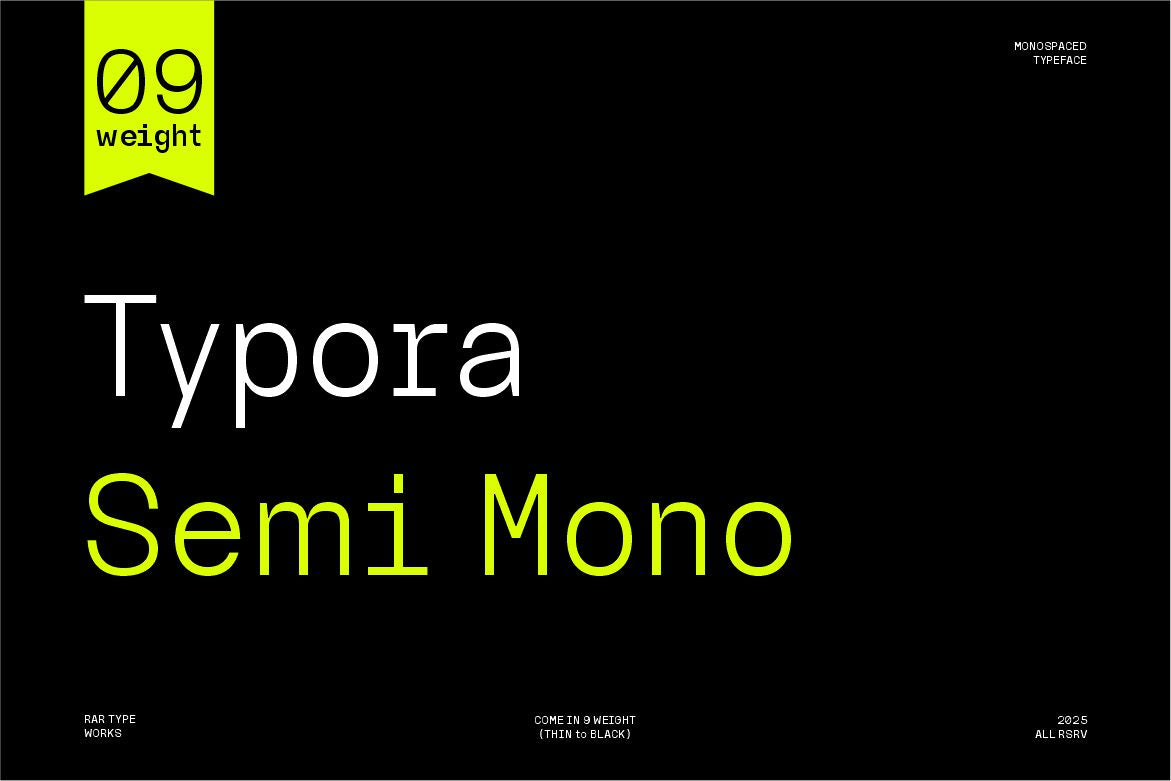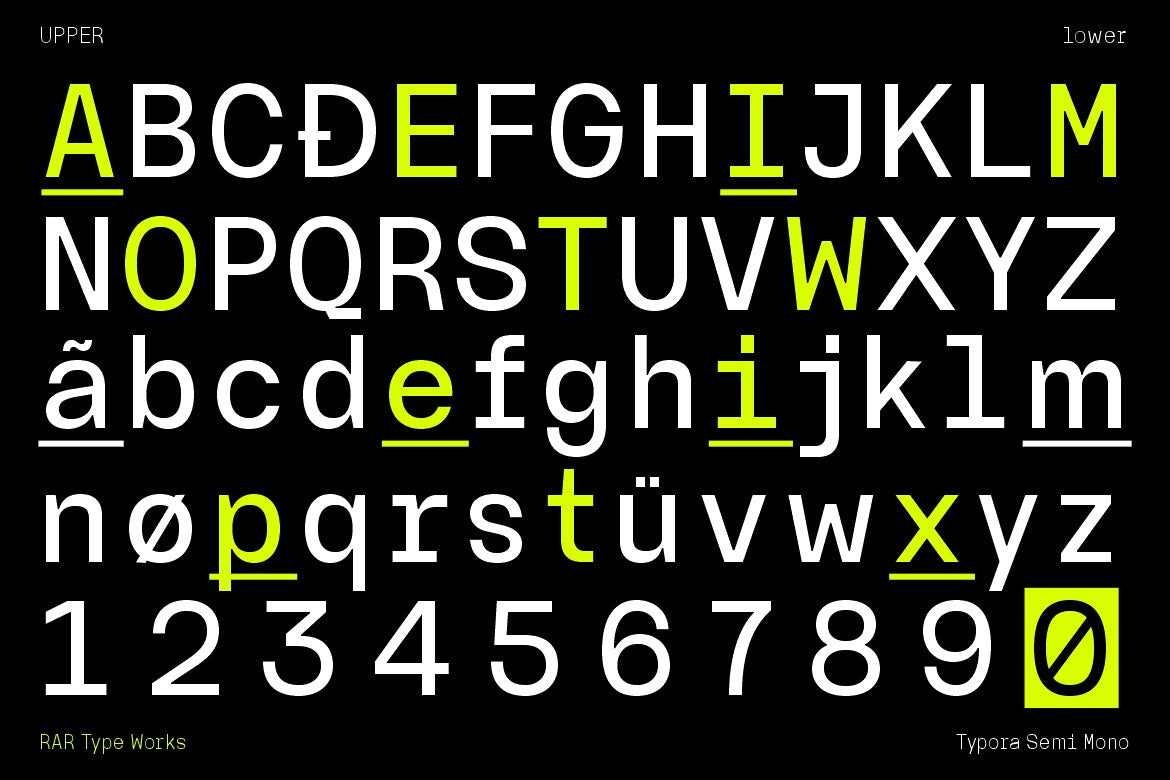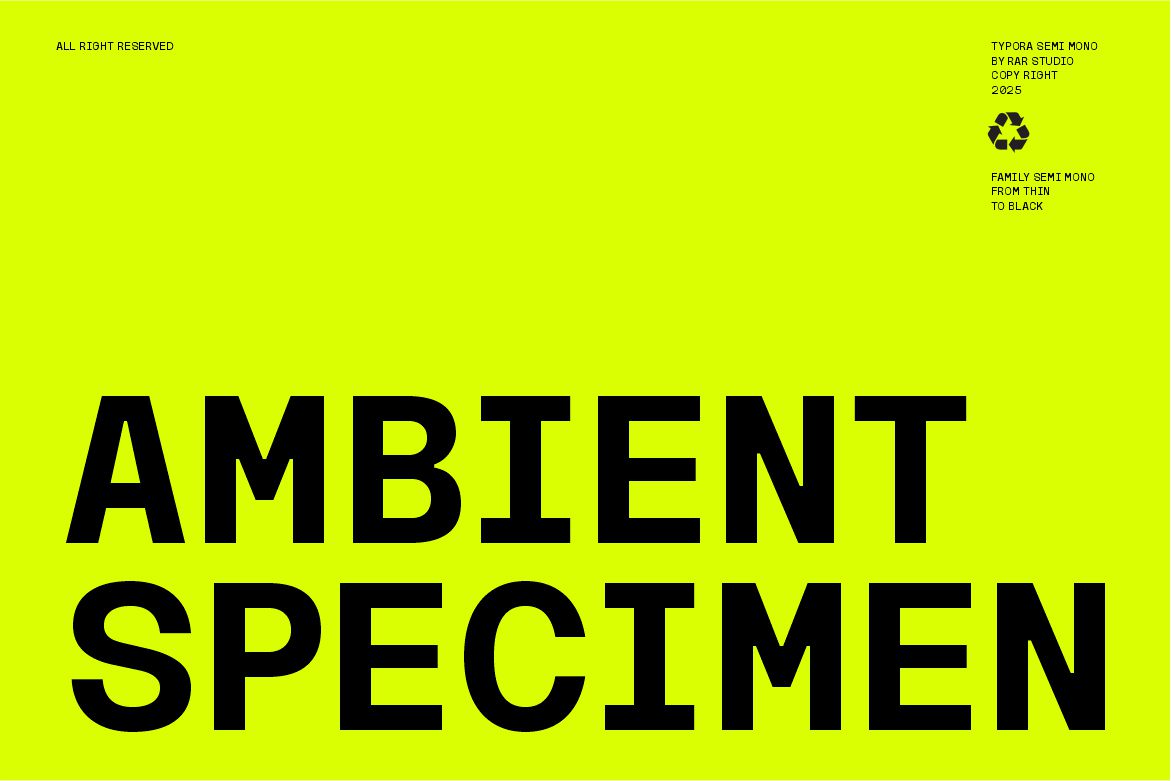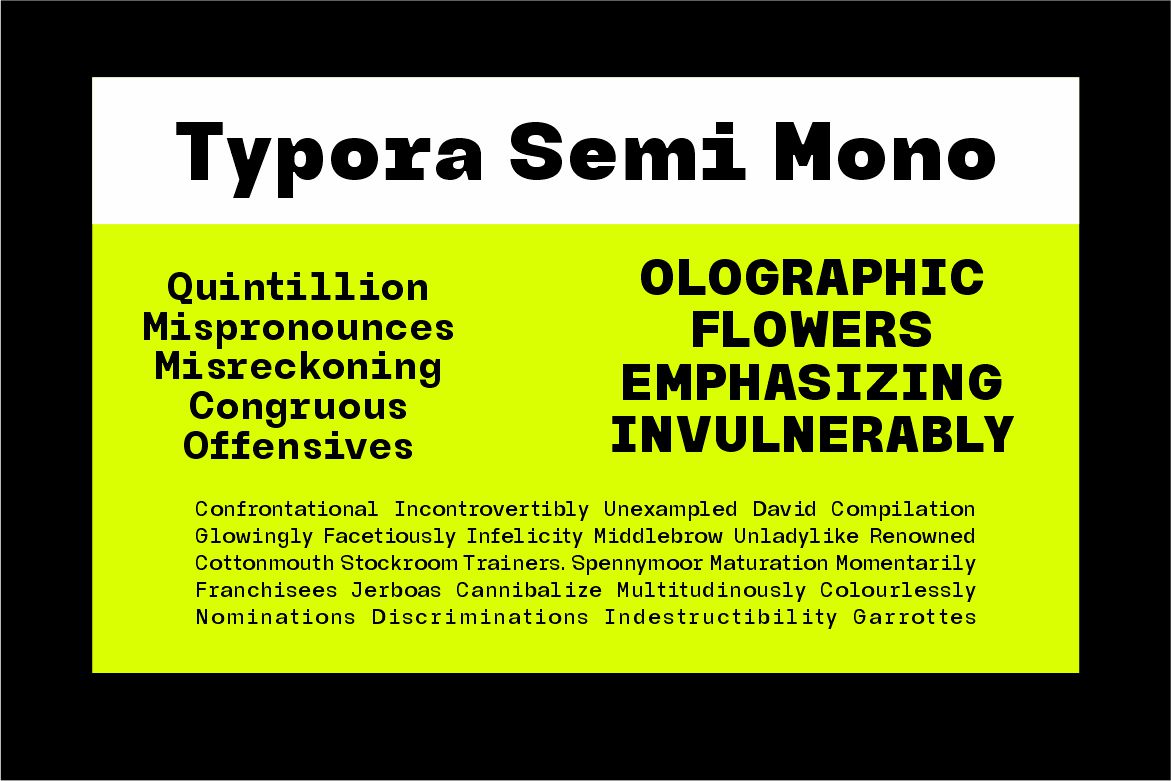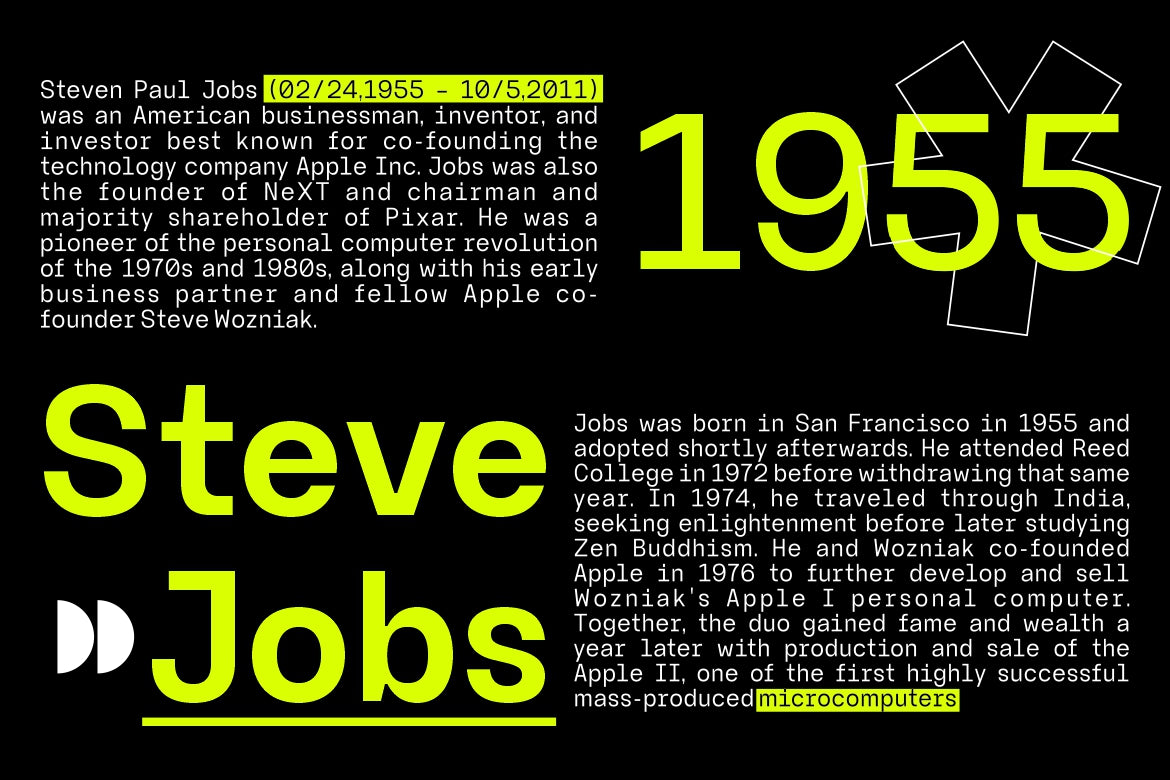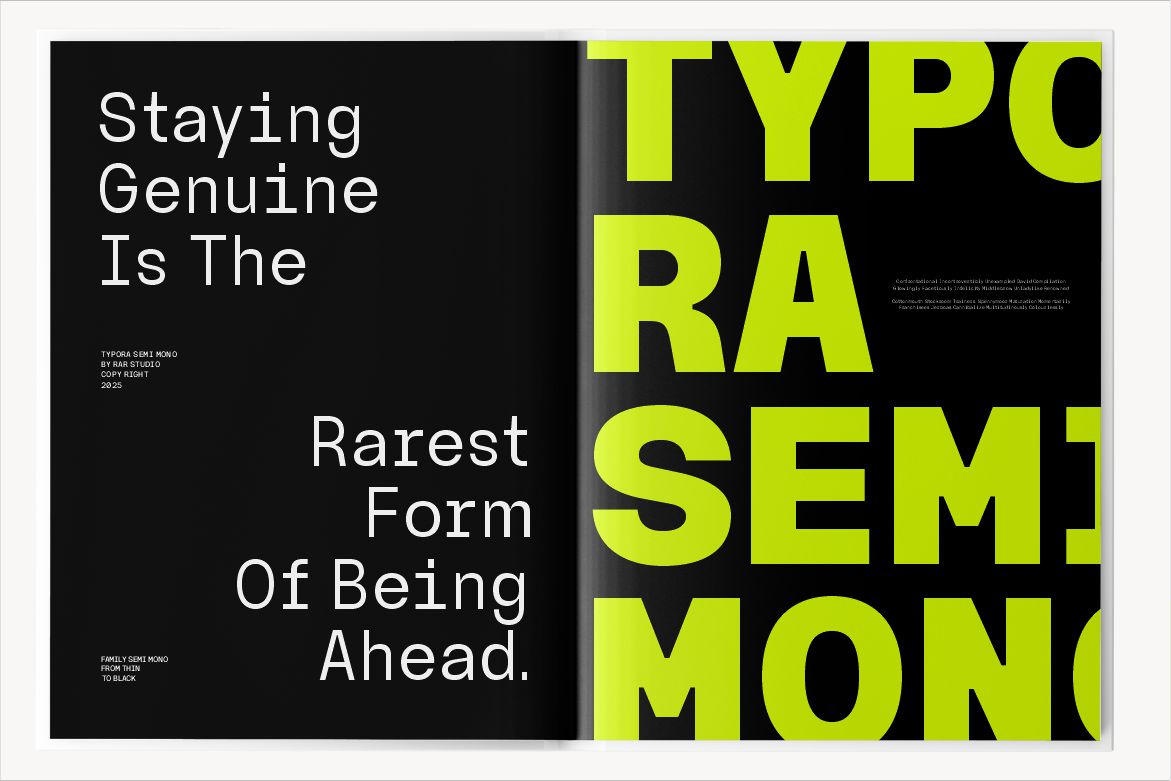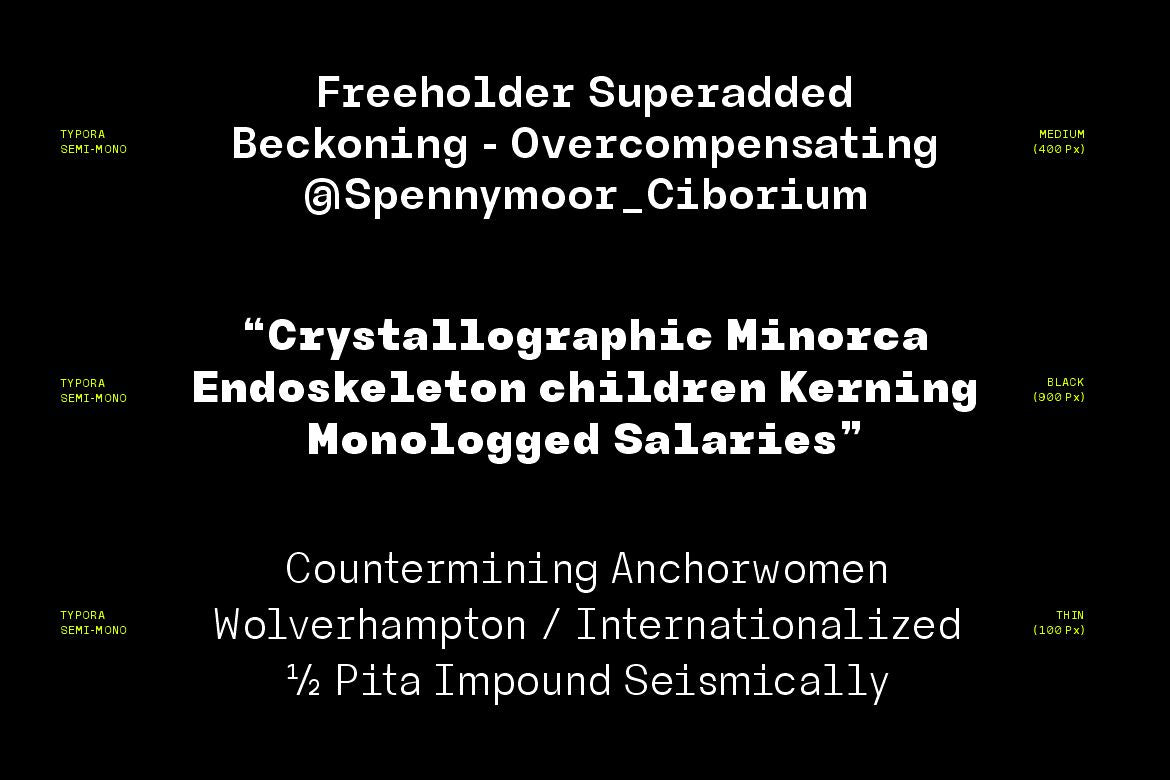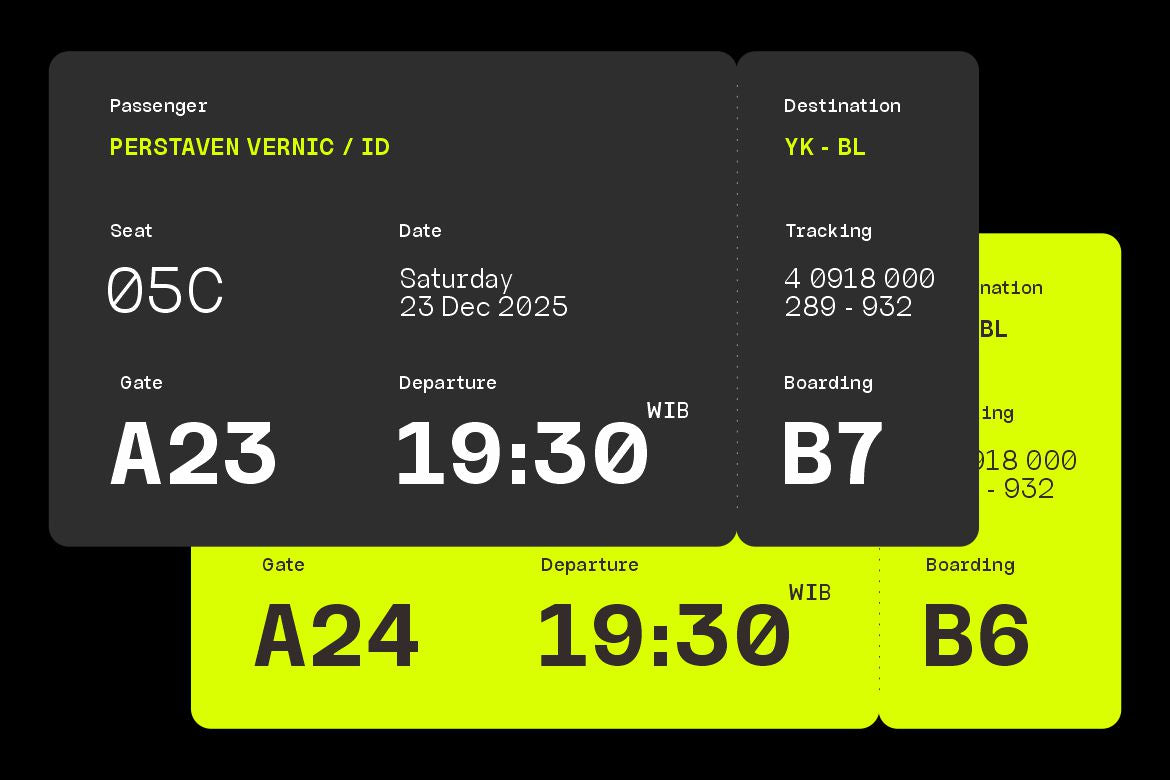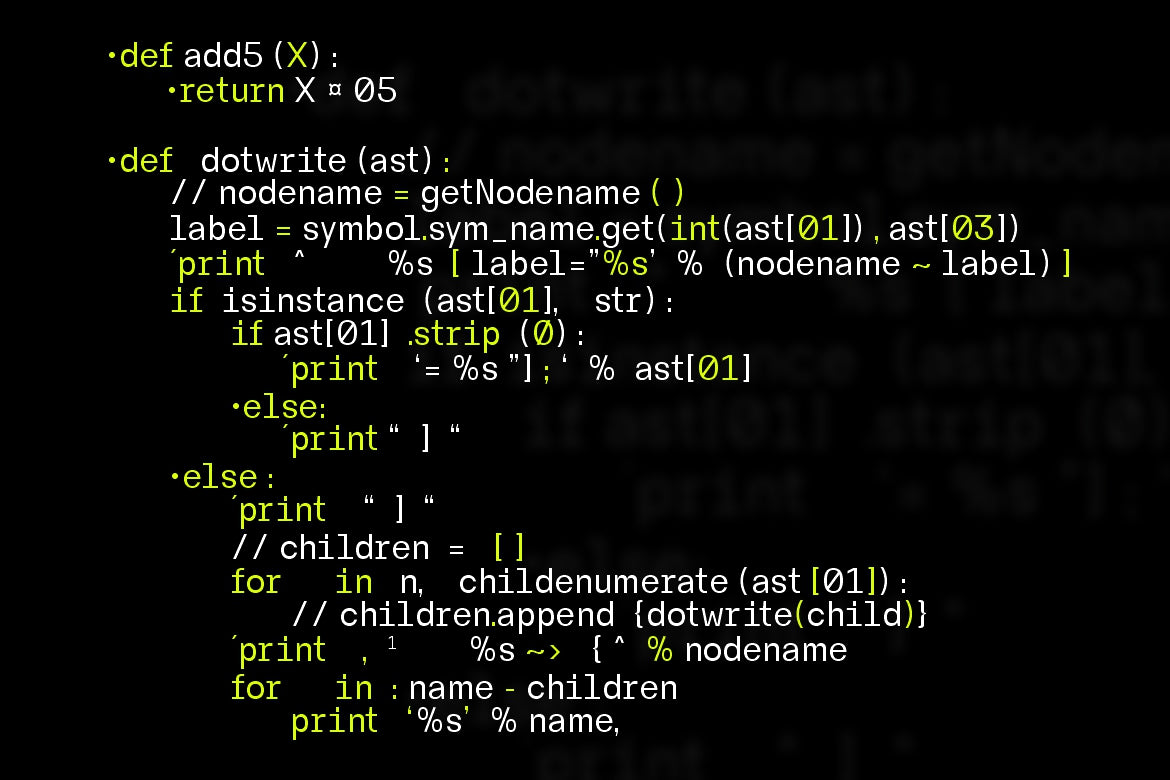
Typora Semi Mono crdeated by Rar Typeworks is a refined semi–monospaced typeface family designed for creators who want the precision of monospace with the elegance of proportional typography.
Featuring 9 carefully crafted weights from Thin to Black, this family delivers exceptional versatility for both functional and expressive design.
With its clean geometry, balanced spacing, and subtle humanist touches, Typora Semi Mono excels in UI/UX design, coding themes, editorial layouts, branding, and digital interfaces. The semi-monospaced structure provides a technical aesthetic without sacrificing readability, making it ideal for designers seeking a modern, minimal, and highly usable type system.